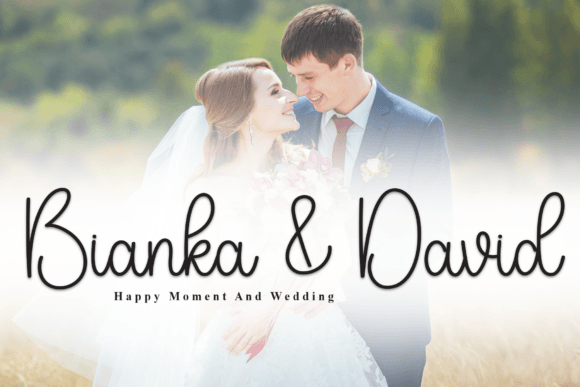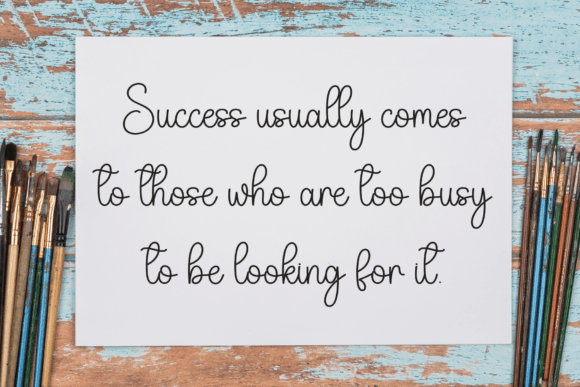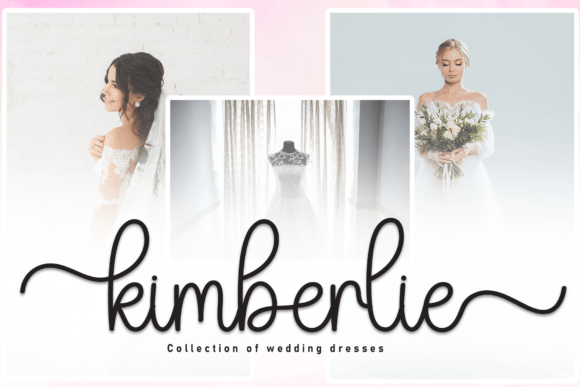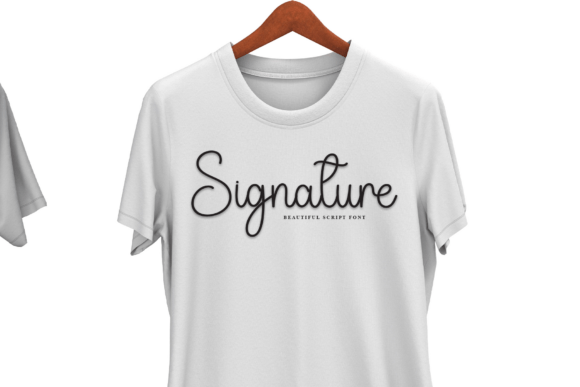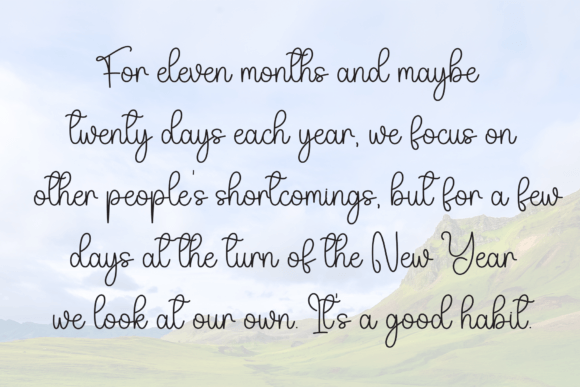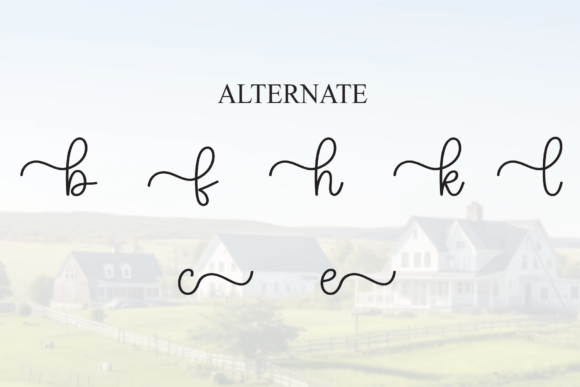
Introducing Farmhouse Font: Elevate Your Designs with Elegance and Style
Are you a designer or crafter looking for a font that adds a touch of sophistication and whimsy to your projects? Look no further than Farmhouse Font, a stylish and incredibly elegant script font that is sure to elevate your designs to the next level. With its beautiful, handwritten aesthetic, Farmhouse Font is perfect for a wide range of applications, from wedding invitations and thank you cards to quotes, greeting cards, logos, business cards, and more.
What Makes Farmhouse Font So Special?
Farmhouse Font is a true standout in the world of typography. Its elegant, cursive script is reminiscent of handwritten calligraphy, but with a modern twist that makes it perfect for contemporary designs. The font features:
- Beautifully crafted letters: Each letter in Farmhouse Font has been carefully crafted to ensure that it is both aesthetically pleasing and highly legible.
- Elegant connections: The font features smooth, flowing connections between letters, giving it a sense of continuity and sophistication.
- Versatile design: Farmhouse Font is suitable for a wide range of design applications, from formal wedding invitations to more casual greeting cards and quotes.
Farmhouse Font is a popular choice for wedding and event designs, and for good reason. Its elegant, sophisticated aesthetic makes it perfect for:
- Wedding invitations: Make a stunning first impression with beautifully designed wedding invitations that set the tone for your special day.
- Thank you cards: Express your gratitude in style with elegant thank you cards that feature Farmhouse Font.
- Event branding: Use Farmhouse Font to create a cohesive brand identity for your event, including programs, menus, and more.
Great for Crafters and Small Business Owners
Farmhouse Font is also a great choice for crafters and small business owners who want to add a personal touch to their designs. Use it to:
- Create stunning logos: Make a lasting impression with a beautifully designed logo that features Farmhouse Font.
- Design eye-catching business cards: Stand out from the crowd with elegant business cards that showcase your brand’s personality.
- Develop a cohesive brand identity: Use Farmhouse Font across all of your marketing materials to create a consistent and recognizable brand identity.
To get the most out of Farmhouse Font, here are a few tips to keep in mind:
- Pair it with complementary fonts: Combine Farmhouse Font with other fonts to create a unique and visually appealing design.
- Experiment with different sizes and colors: Play around with different sizes and colors to find the perfect combination for your design.
- Use it sparingly: Farmhouse Font is a statement font, so use it sparingly to avoid overwhelming your design.